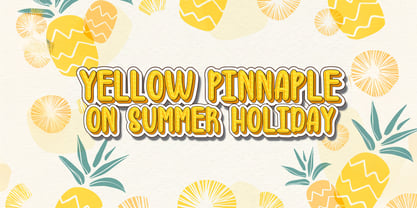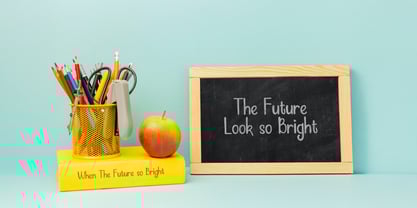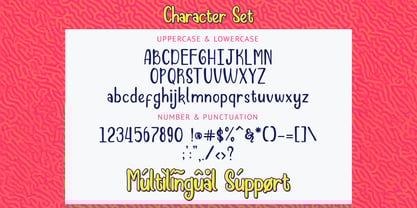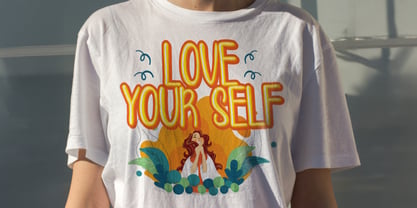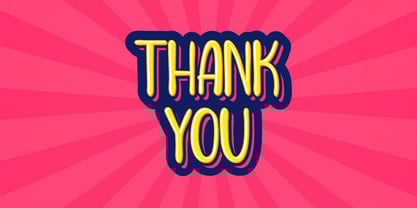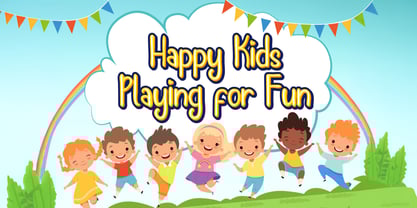
The Jangkids Font Family was designed by Virgiawan Listanto and published by Stringlabs Creative Studio. Jangkids contains 1 styles.
Jangkids is fun and whimsical display font designed to bring joy and personality to your designs. Make your designs stand out with Jangkids, the font that speaks the language of fun.
Jangkids